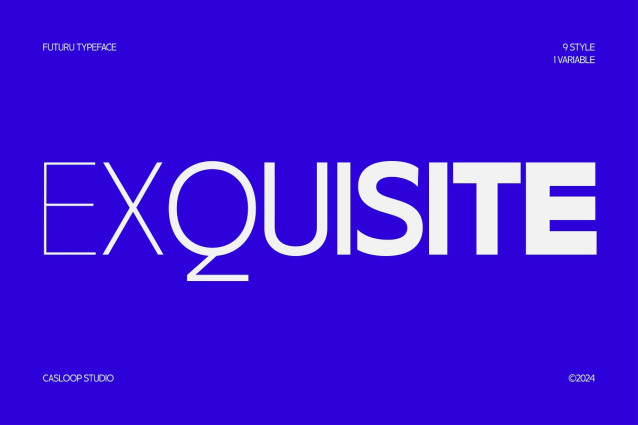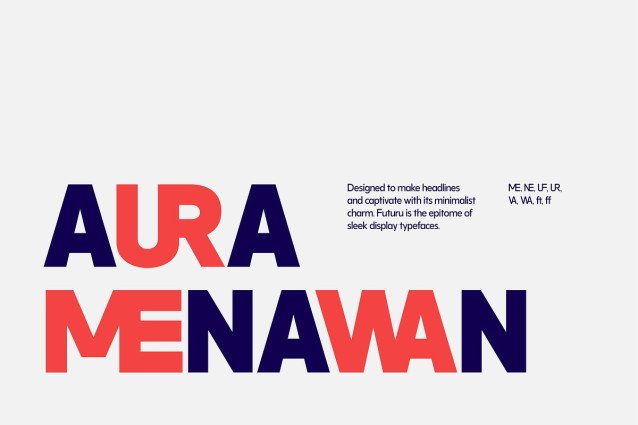
Futuru Font
Futuru Font the modern geometric sans-serif typeface that bridges the gap between timeless elegance and contemporary design. With its distinctive uppercase characters and historical neo-grotesque inspiration, Futuru is a versatile solution for all your branding and digital media needs.
What sets Futuru apart is its unique blend of professional and minimalistic design. Its sleek, impactful forms are perfect for a wide range of applications, from website logos and packaging to dynamic text animations and motion graphics. The font’s large x-height and short descenders ensure exceptional legibility, while its modern, quirky elements add a touch of originality and flair.